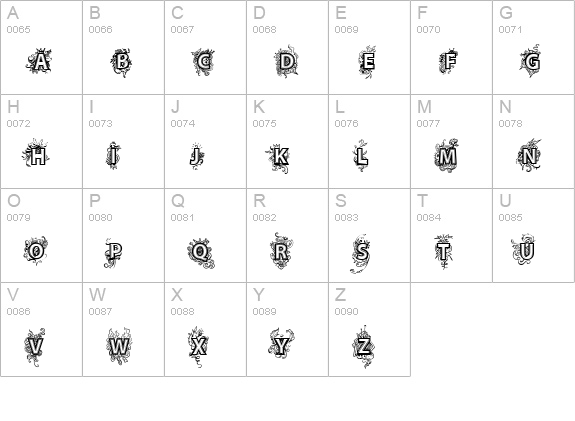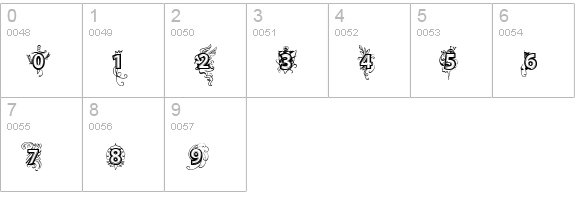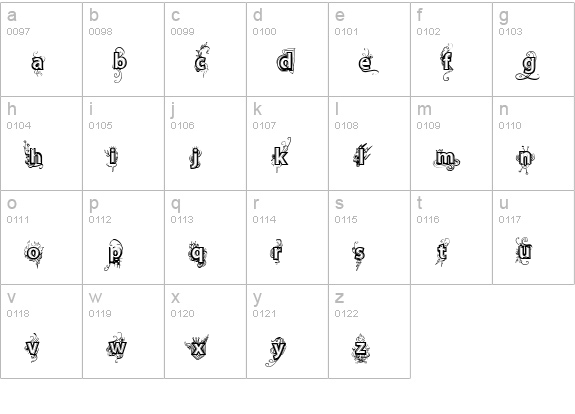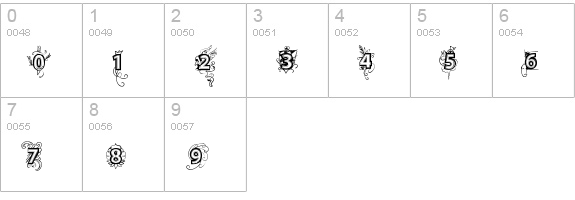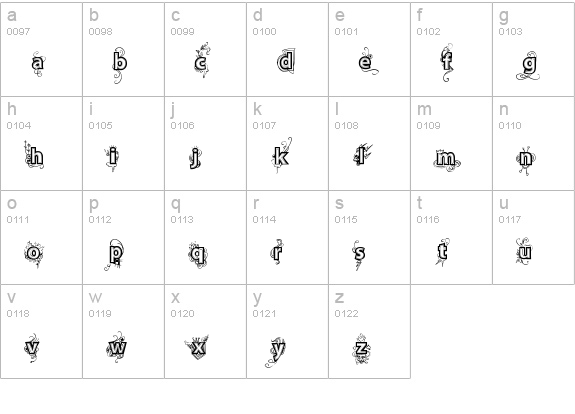
vtks Deja Vu Font Details
Vtks Deja Vu is a stylish and modern font that exudes a sense of elegance and sophistication. Its sleek lines and unique design make it perfect for a variety of creative projects, from branding to advertising to social media posts. This versatile font is sure to make your text stand out and leave a lasting impression on your audience. The best part about Vtks Deja Vu font is that it is completely free to download. You can easily access this beautiful font at FontsMarket.com, where you can add it to your collection without any cost. With its eye-catching appearance and easy readability, Vtks Deja Vu is the perfect choice for anyone looking to elevate their design projects. Don't miss out on this amazing opportunity to enhance your creations with this stunning font!